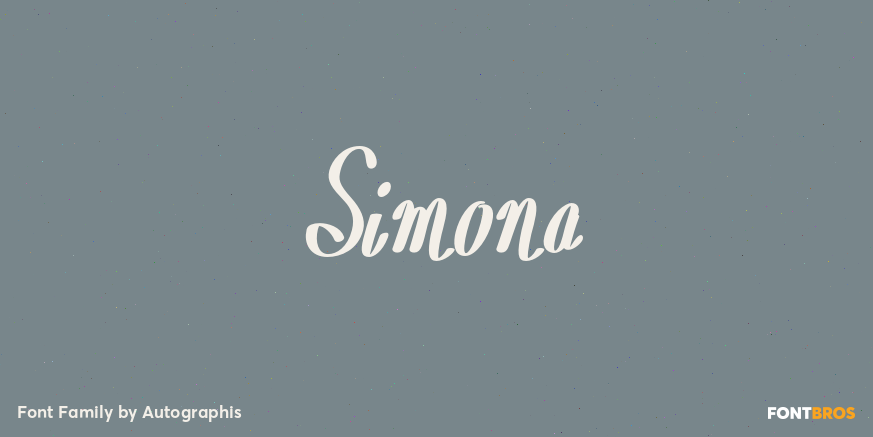
HomeFont BrosScripts: CasualSimona Scripts: Casual Simona FacebookXPinterestWhatsApp 1 of 1 About Simona Simona is is a very lively narrow script designed in the style of the classic American advertising font from the forties or fifties.  DOWNLOAD ON FONT BROSThis font is sold and delivered by Font Bros. Font Canyon may earn a commission if you buy through this link. People also explored Kingdom Font Dreams Font Eye Balls Duo Font Sunday Font Brotherdam Signature Font Love Heist Font Olesia Handwritten Font Font Cohort Shoal Font 283 0 TagsSimonaSimona Font Previous articleFilmotype CandyNext articleBorneo LEAVE A REPLY Cancel reply Comment: Please enter your comment! Name:* Please enter your name here Email:* You have entered an incorrect email address! Please enter your email address here Website: Save my name, email, and website in this browser for the next time I comment. Personal Use Free Black Personal Use Free Read more about this font Millea Personal Use Free Read more about this font Mellow Personal Use Free Read more about this font Ashay Personal Use Free Read more about this font BLOG Fonts That Capture the Spirit of New York City New York City is more than just a place—it’s an experience, a rhythm, a visual language... Transform Your Website: Elevate Your Typography with 7 Best Web Font Generators How to Cut Any Font on Cricut: Convert a Font to SVG (Free) Best Fonts for T-Shirt Design – Top 2025 Picks